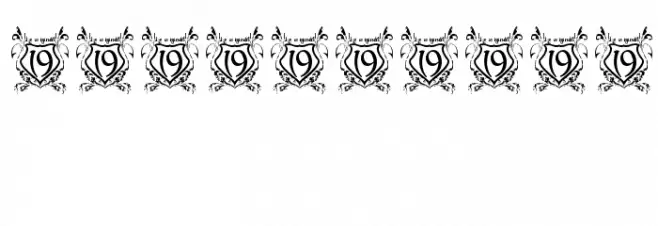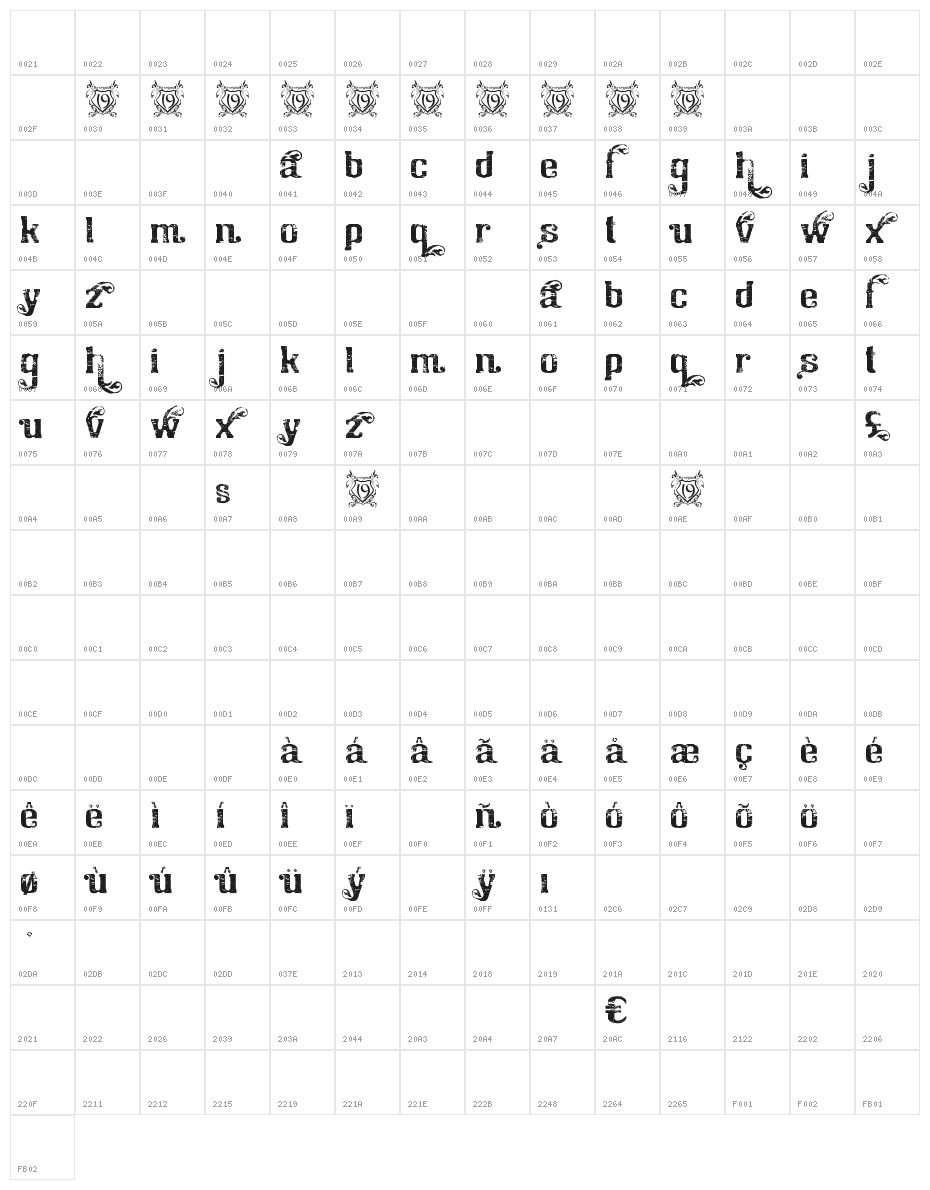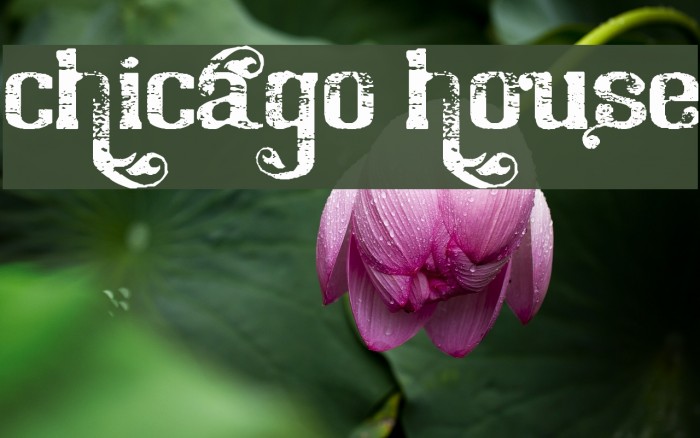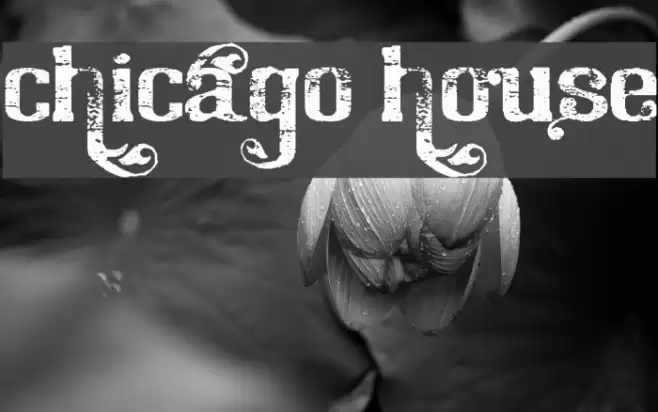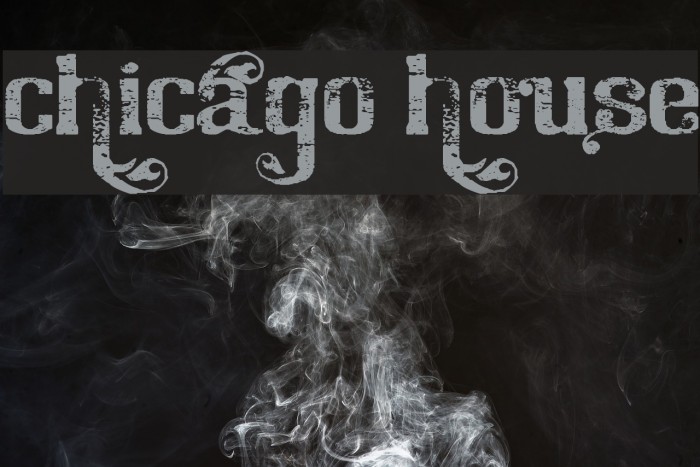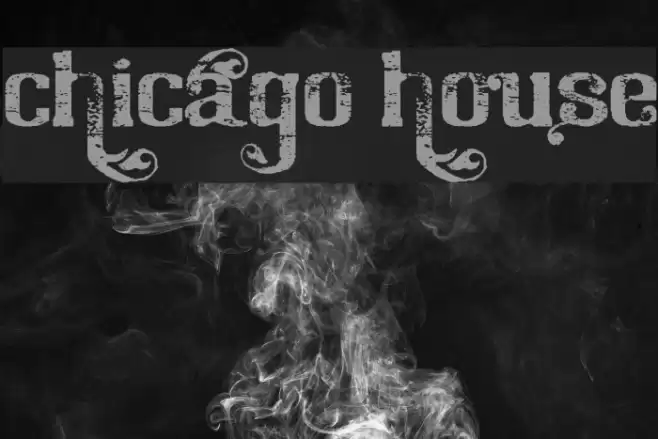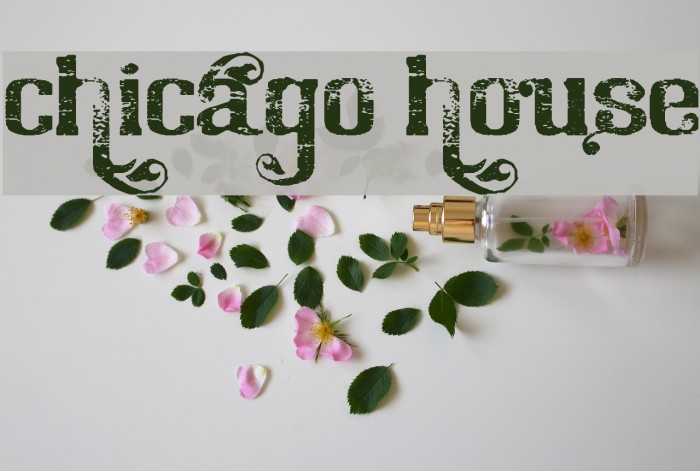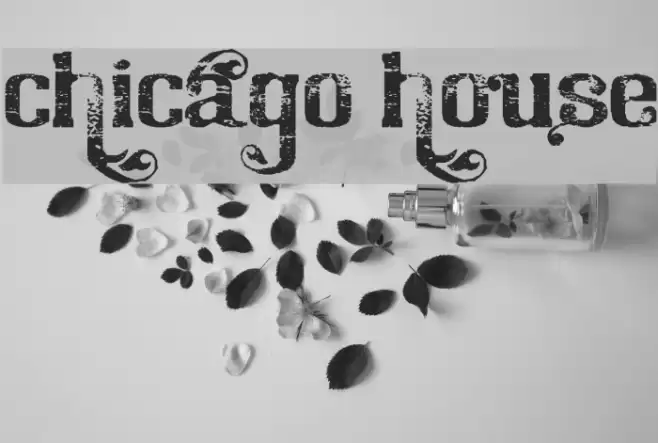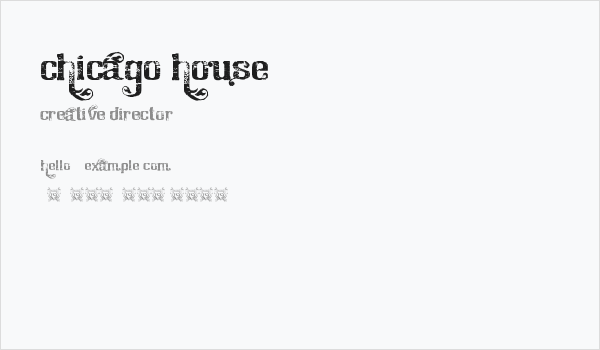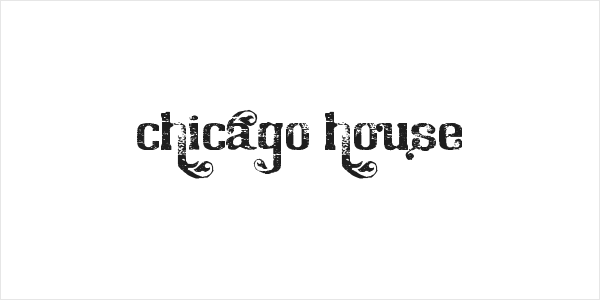
Chicago House Font
Chicago House Description
This font features a distressed, vintage style with ornate, decorative elements integrated into the characters. The letters have a bold, textured appearance, reminiscent of old printing techniques. The embellishments add a unique flair, making it stand out for creative and artistic projects. The overall look is both rugged and elegant, suitable for designs that require a touch of nostalgia or a handcrafted feel. The font's intricate details and bold presence make it ideal for impactful visual statements.
| Proposed Projects | Ideal for vintage posters, album covers, branding for artisanal products, and decorative signage. |